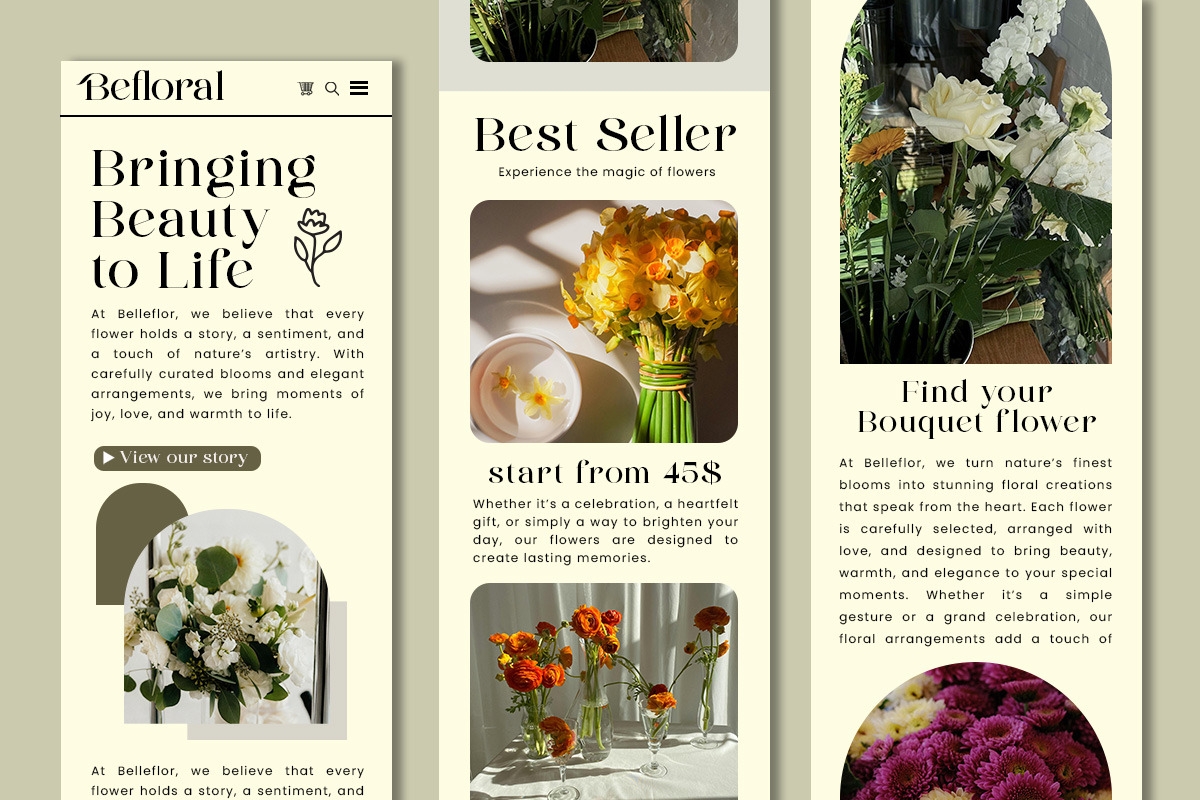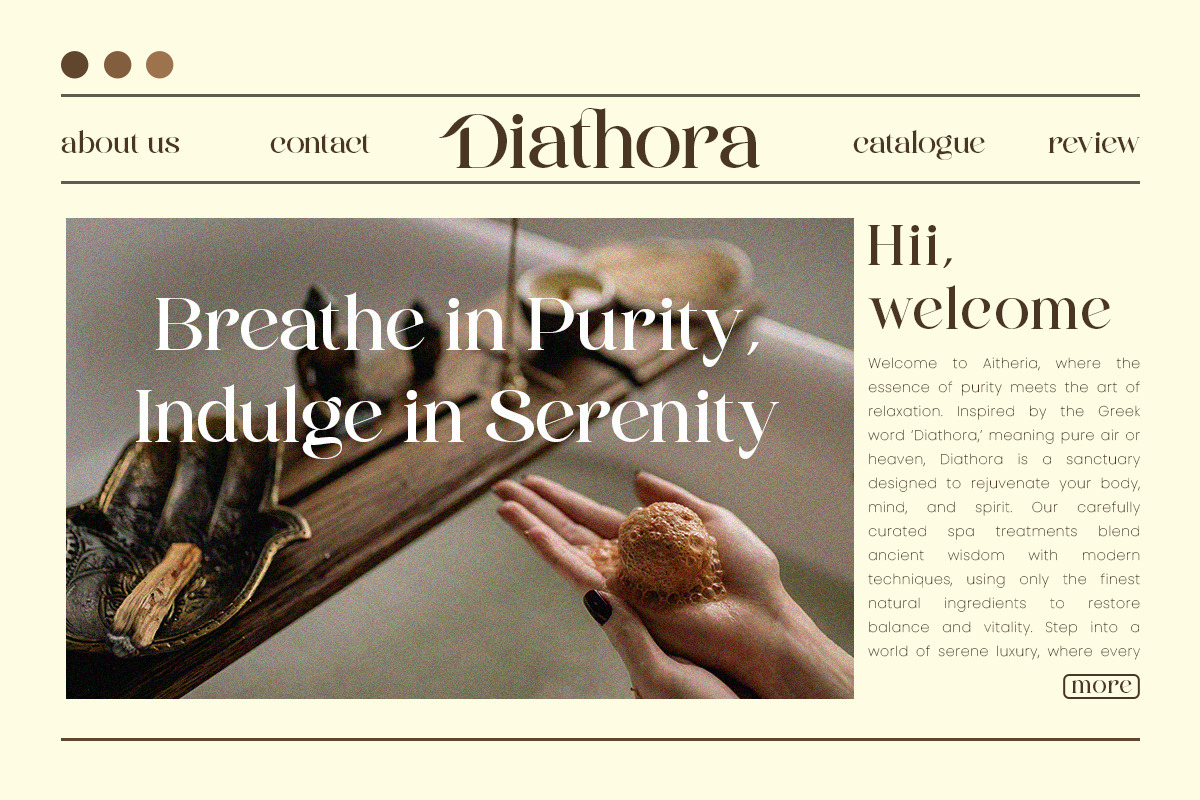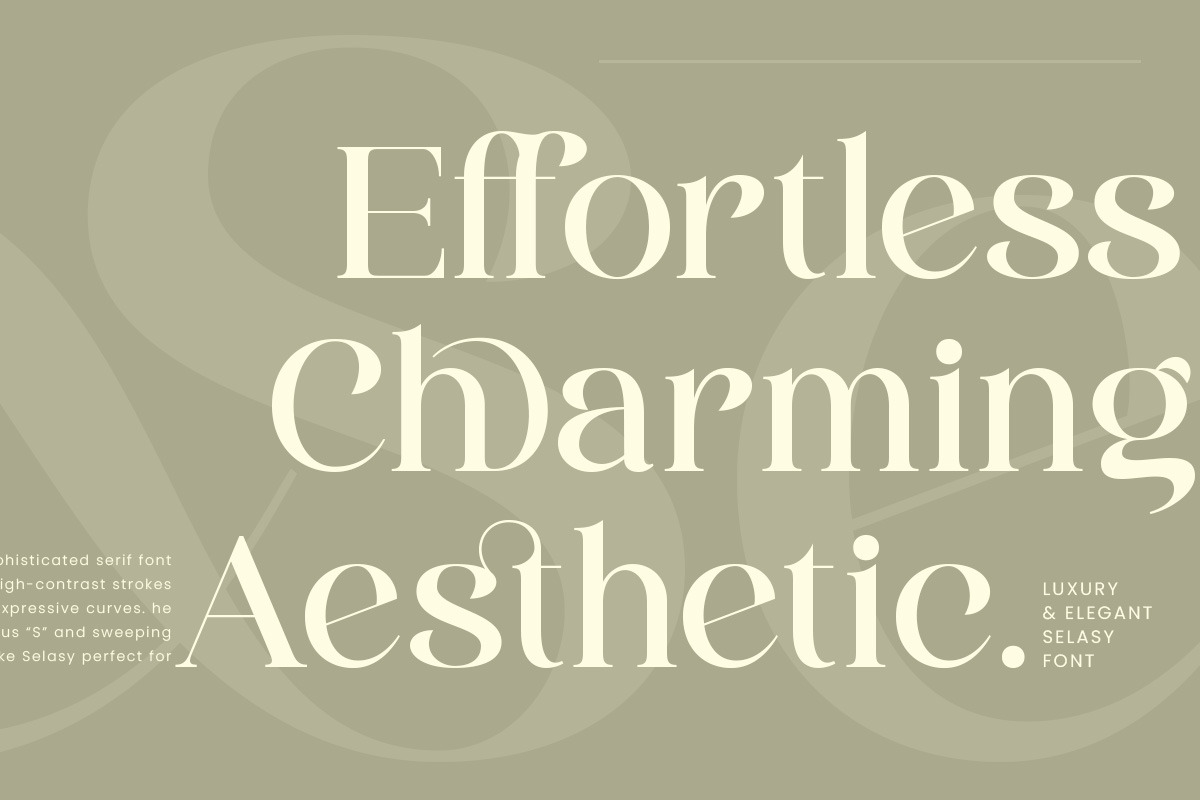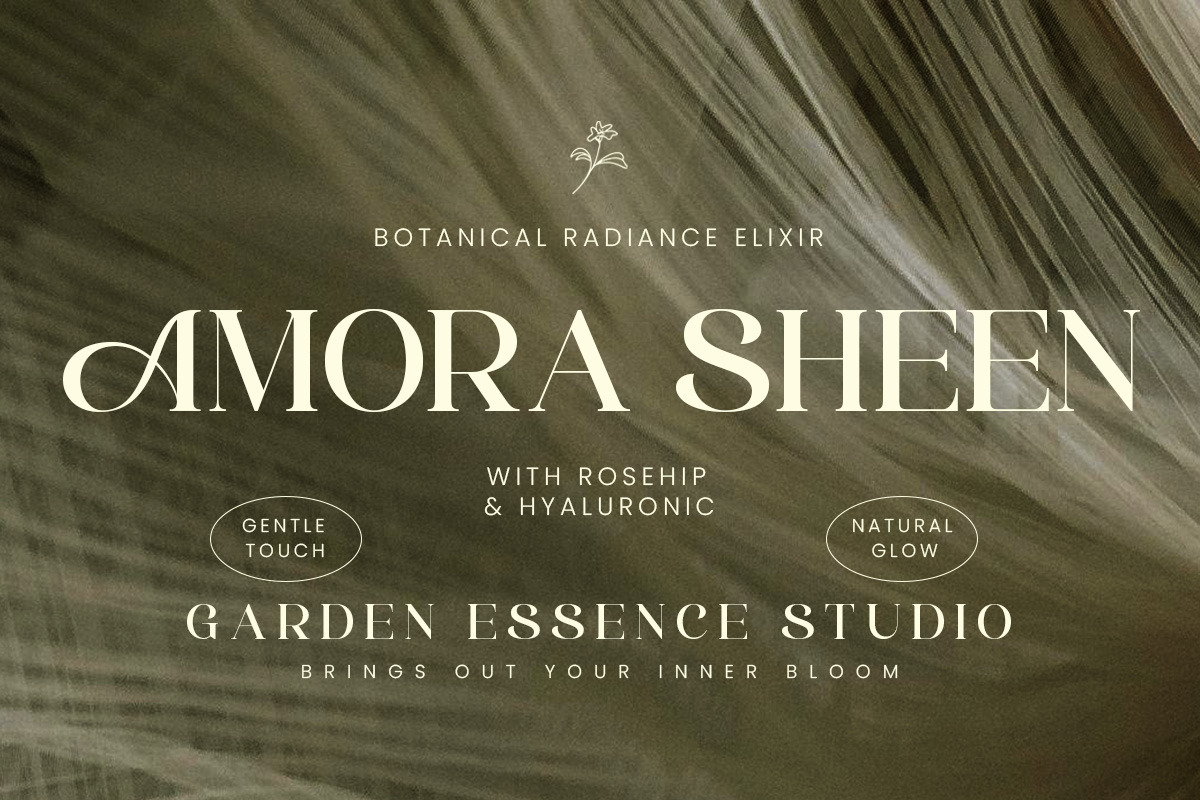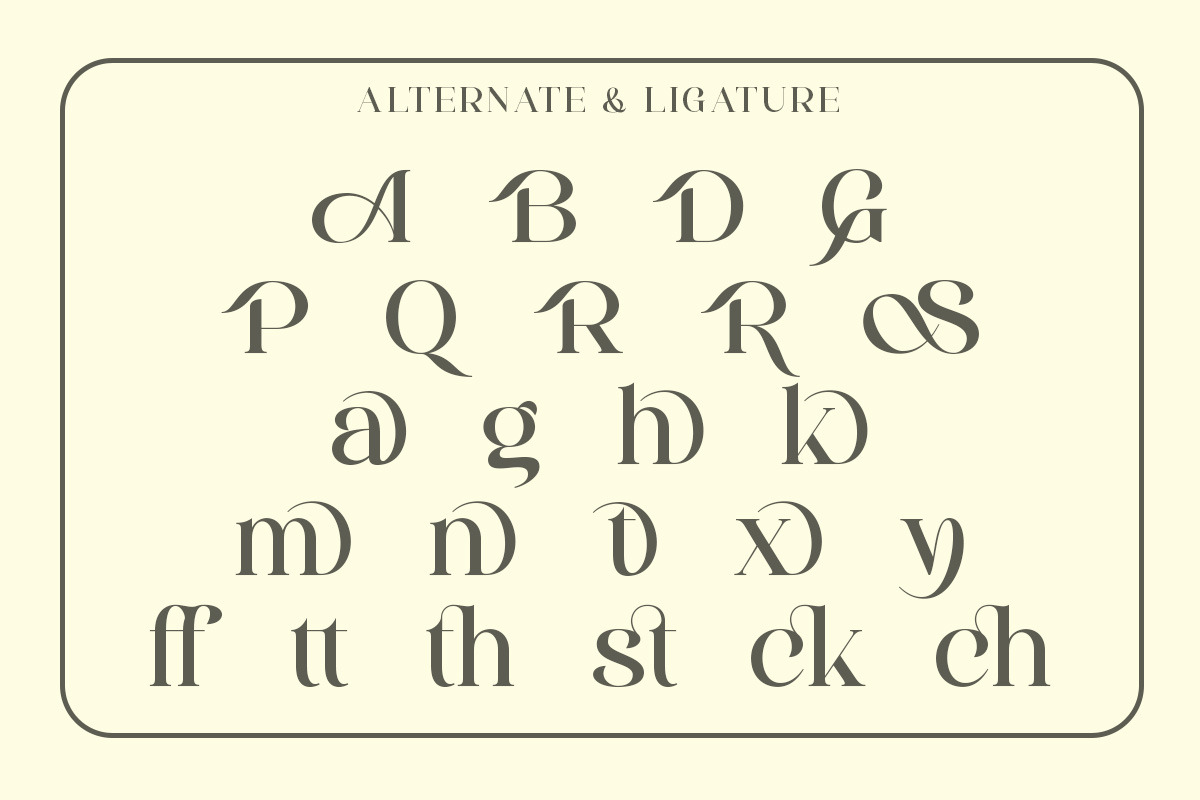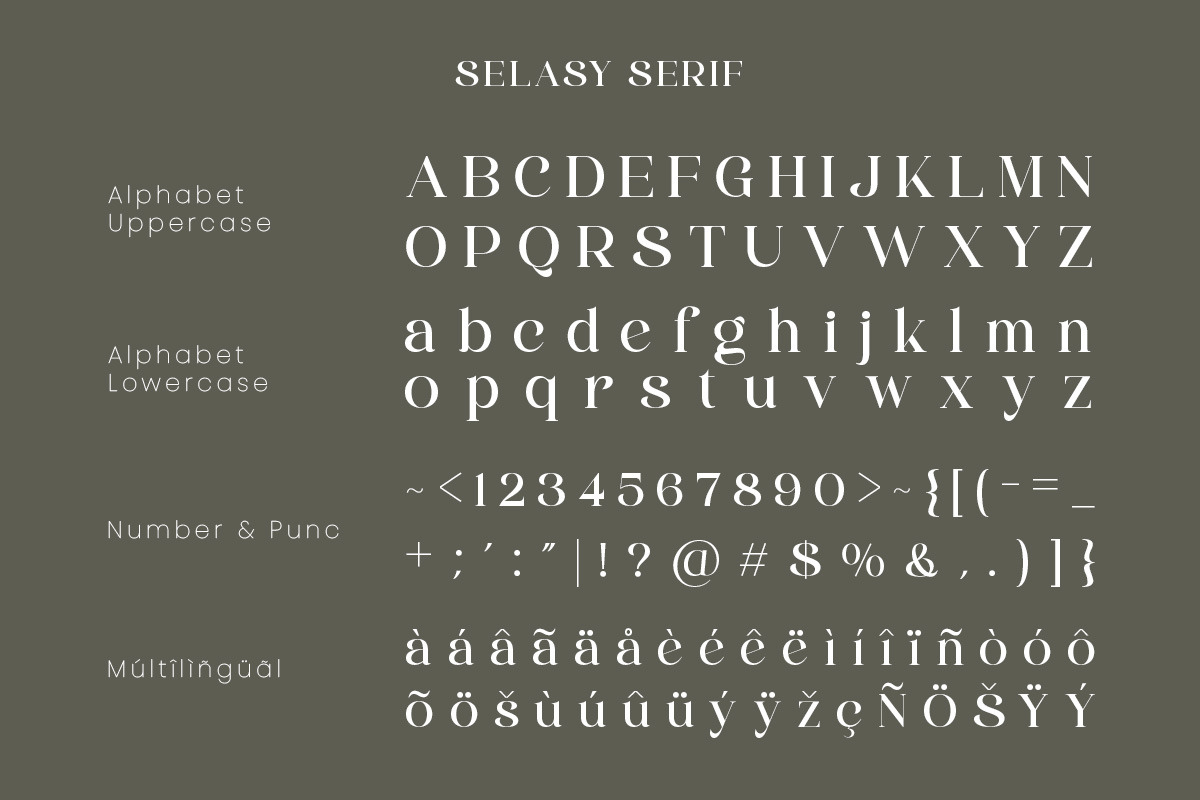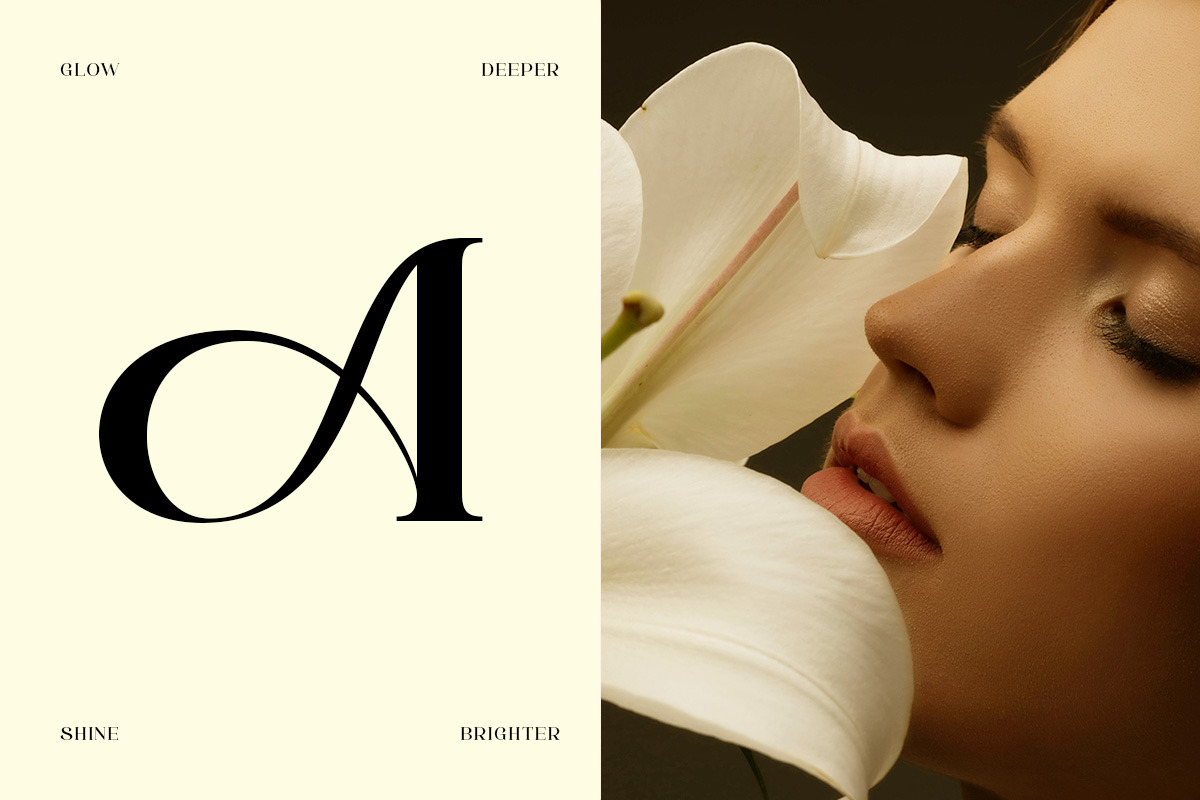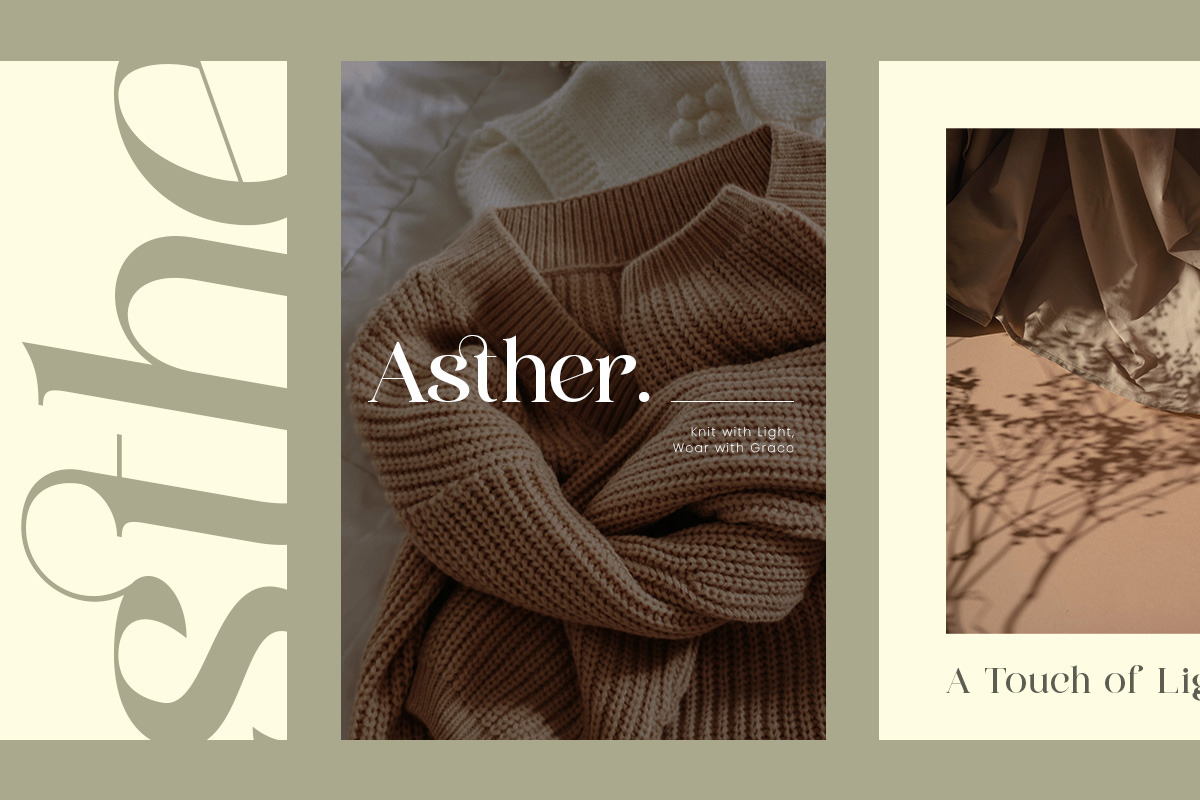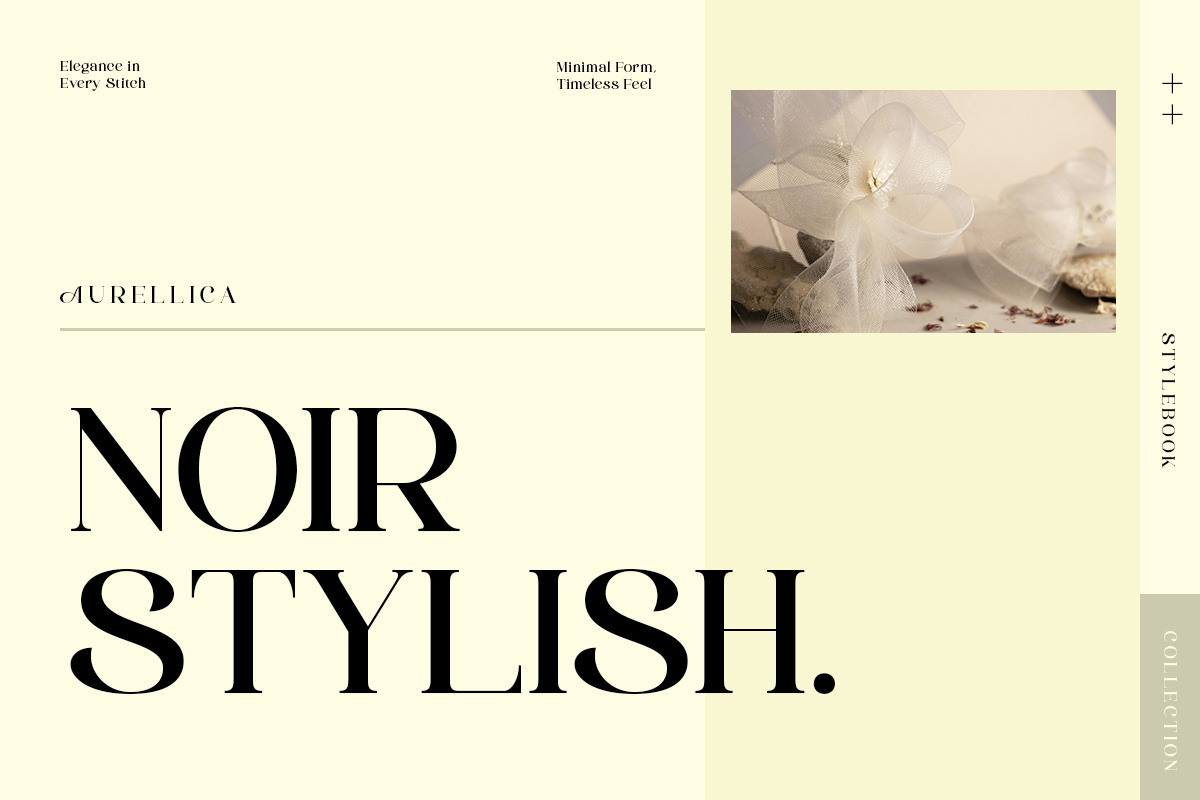
Selasy - New Modern Font
Selasy is a refined serif typeface that blends timeless beauty with modern sophistication. Designed to elevate your design work with effortless class, Selasy features graceful ligatures, sharp terminals, and a fluid rhythm that draws the eye and holds attention. Whether you're working on editorial layouts, branding presentations, packaging, logo, or wedding stationery, Selasy adds a sense of polished elegance to every project.
Its high-contrast strokes and delicately sculpted letterforms make it a perfect choice for premium visual storytelling. From fashion lookbooks to luxury cosmetics, Selasy delivers clarity and charisma without trying too hard.